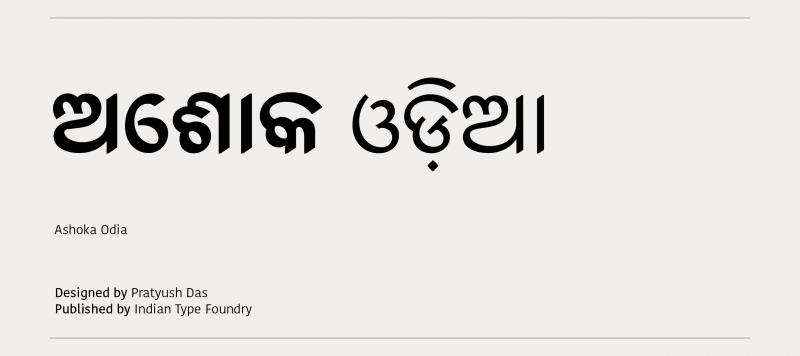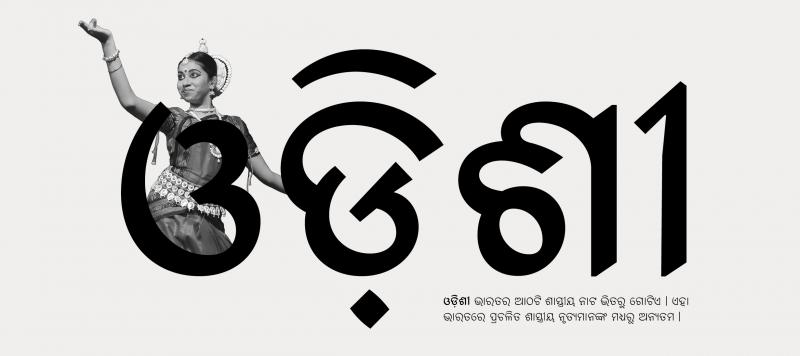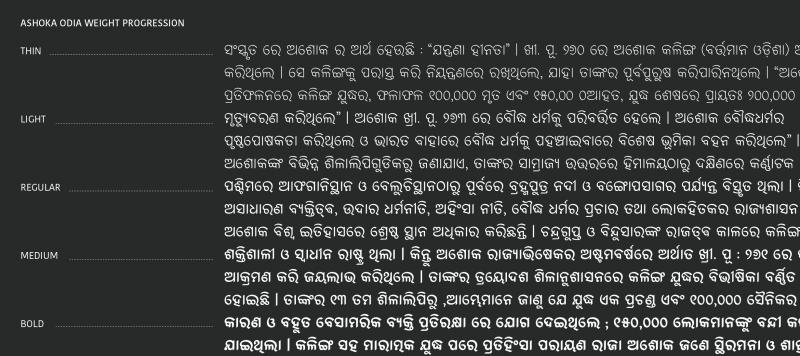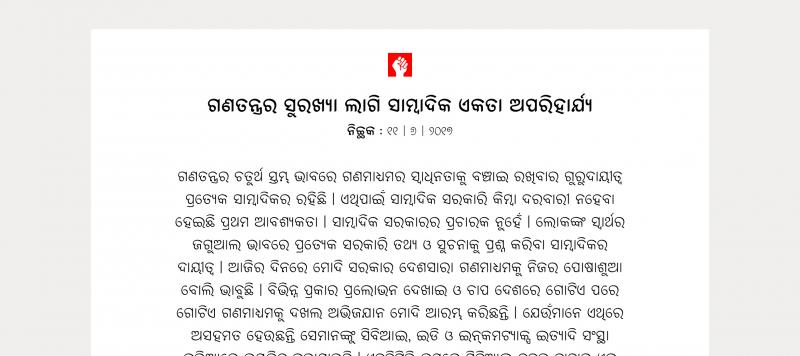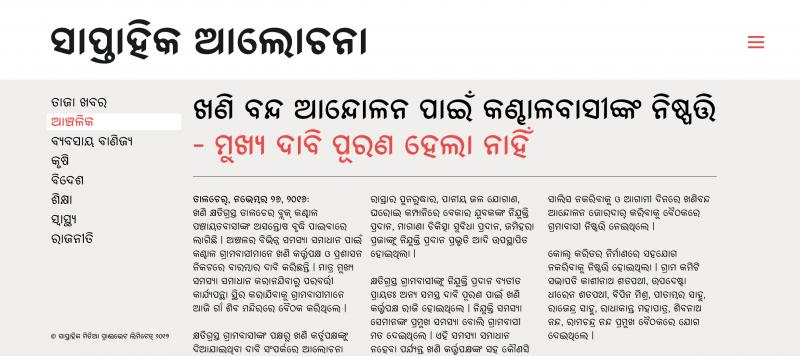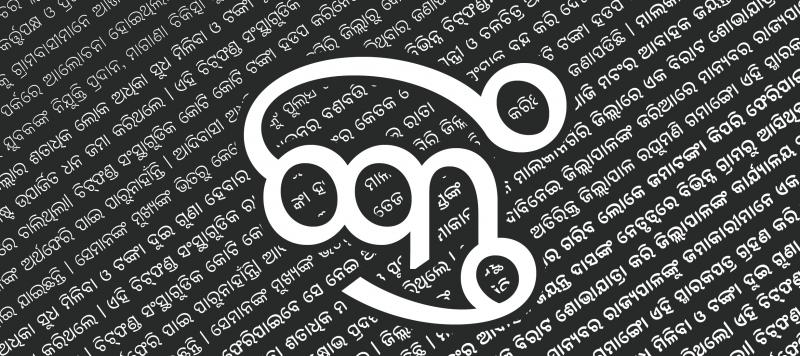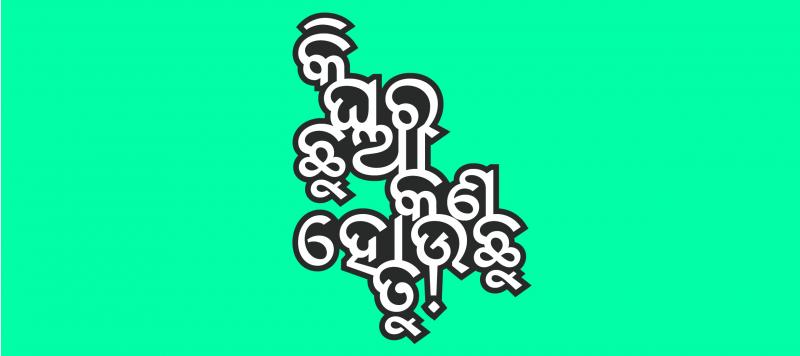
Ashoka Odia is an Odia-script typeface created for use in long passages of text intended for immersive reading. As a design, Ashoka Odia is a series of firsts: it is the first text typeface designed for Odia that applies Latin-style stroke contrast to the script’s letterforms. It is also the first family for the Odia script to apply industry standards to each of its constituent fonts by e.g. making multiple related weights available and by including kerning and OpenType features. Ashoka Odia is the first typeface published by NID-graduate Pratyush Das. Ashoka Odia is ITF’s first commercial release for the Odia script, too. The family includes five styles that range in weight from Thin through to Bold. The characters in each weight feature a mild degree of visible stroke contrast. The amount of contrast remains relatively similar as you move up the scale from lighter to heavier weights. The fonts’ character sets include 270 devoted Odia-script glyphs. Thanks to the fonts’ OpenType features, these can combine into representations of all the sounds required by the Odia language. The character set is rounded out by a series of Latin-script numerals and basic Latin punctuation marks. The Ashoka Odia typeface is named named after Ashoka, the famous Indian emperor who reigned in the third century B.C.E.